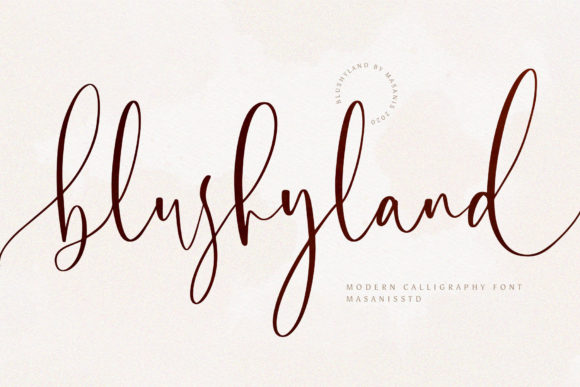
The Blushyland Font: A Modern Elegance for Your Creative Projects
An Honest Review of Blushyland Font
- ✨ Modern and elegant design: Blushyland is a stunning font that exudes sophistication and style.
- ✅ Plenty of stylistic alternates: With a wide range of alternates, you can easily customize your text to fit your project’s tone and personality.
- 💫 Versatile usage: From logos to wedding invitations, headings to t-shirts, Blushyland is perfect for various design projects.
While Blushyland is an amazing font, there are a few things to keep in mind:
- ⚠️ Some alternates may require manual kerning: Depending on the platform you’re using, you might need to adjust the kerning to get the perfect look.
- 🤔 Not ideal for body text: Due to its elegant and cursive nature, Blushyland is best suited for headings and titles rather than large blocks of text.
The Backstory of Blushyland Font
Blushyland was designed with the intention of creating a modern, elegant font that could be used for a wide range of creative projects. The designer aimed to craft a font that exudes sophistication and style, while still being approachable and friendly. The result is a beautiful font that has captured the hearts of many designers and crafters.
Q: What type of projects is Blushyland best suited for?
A: Blushyland is perfect for various design projects such as logos, wedding invitations, headings, t-shirts, letterhead, signage, labels, news, posters, badges, and more.
Q: Does Blushyland support OpenType features?
A: Yes, Blushyland supports OpenType features, including stylistic alternates and glyphs, which can be accessed in compatible software like Adobe Creative Cloud.